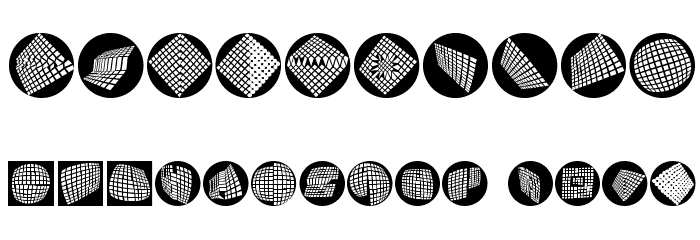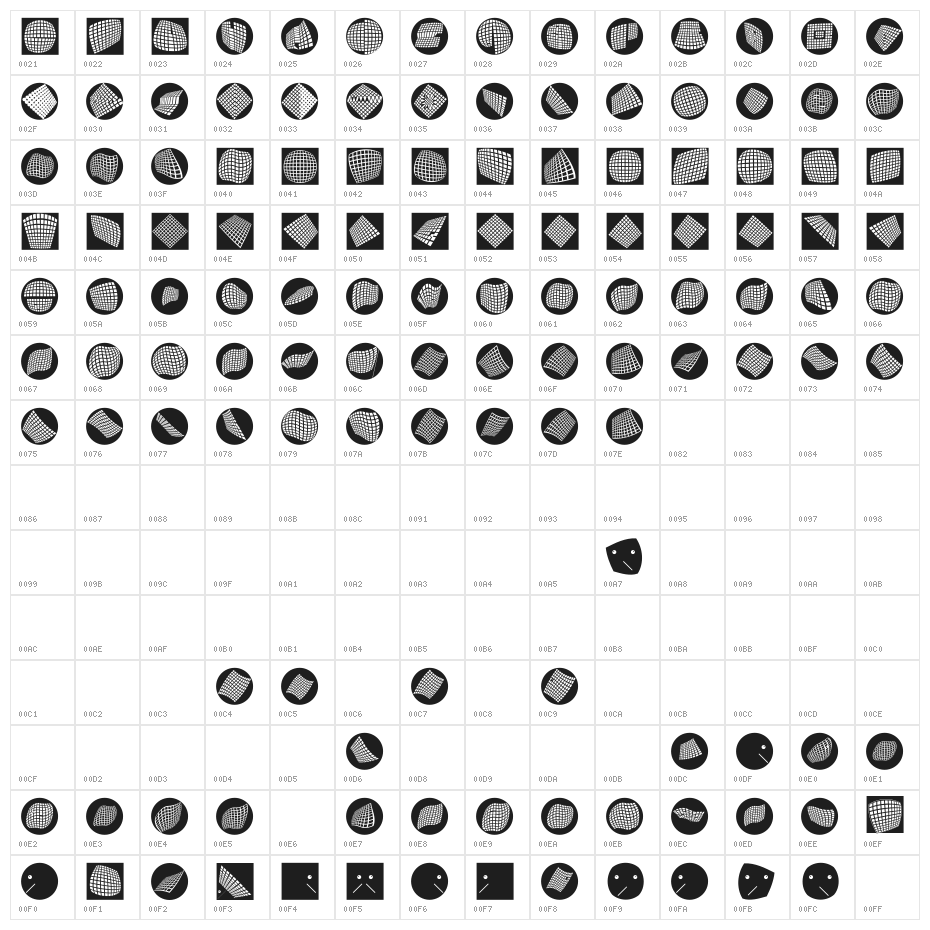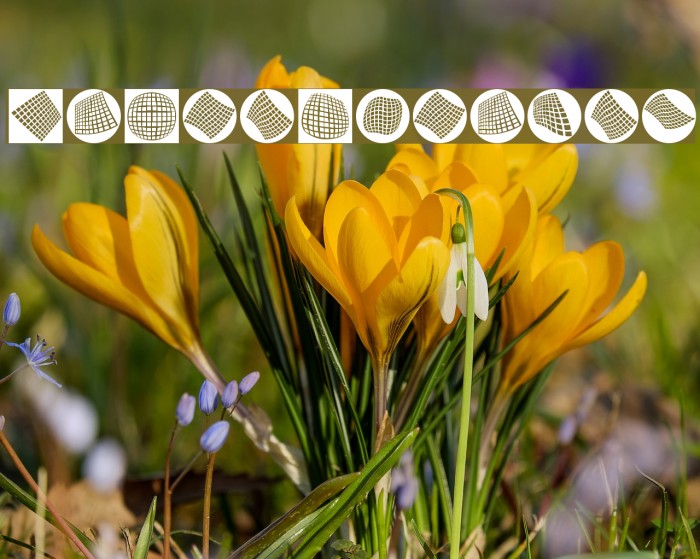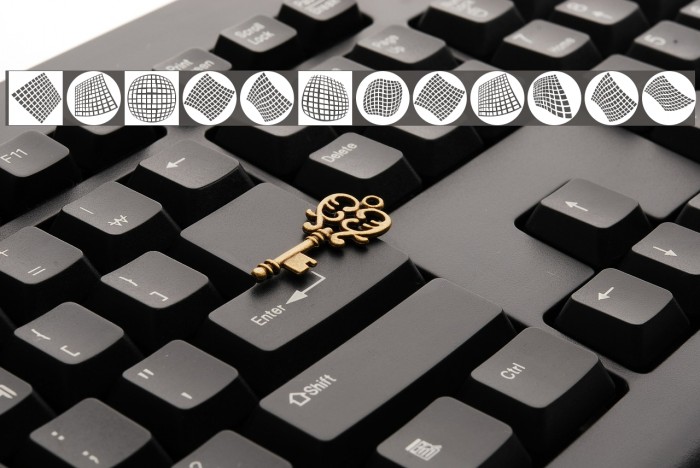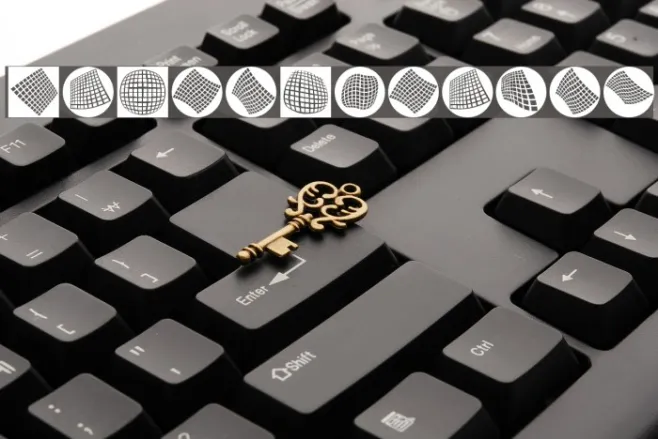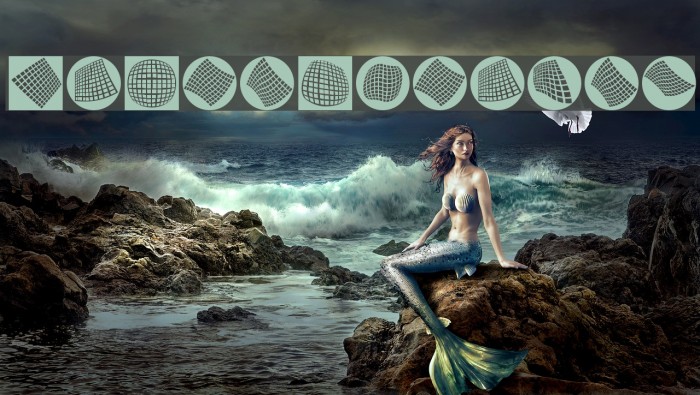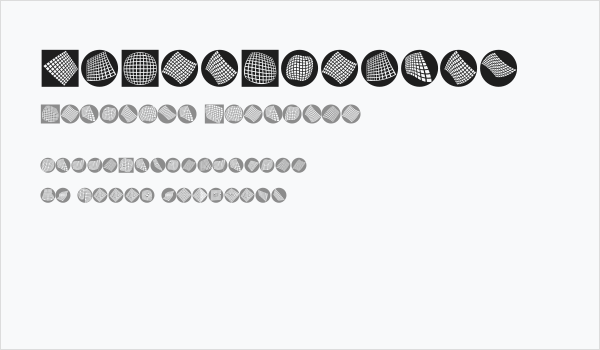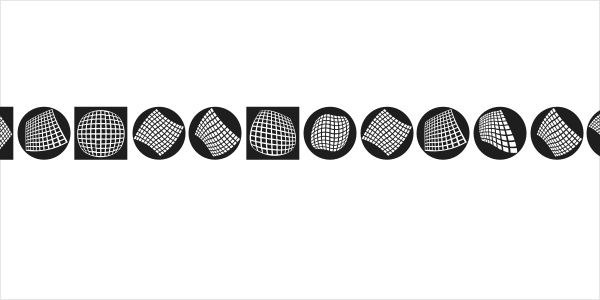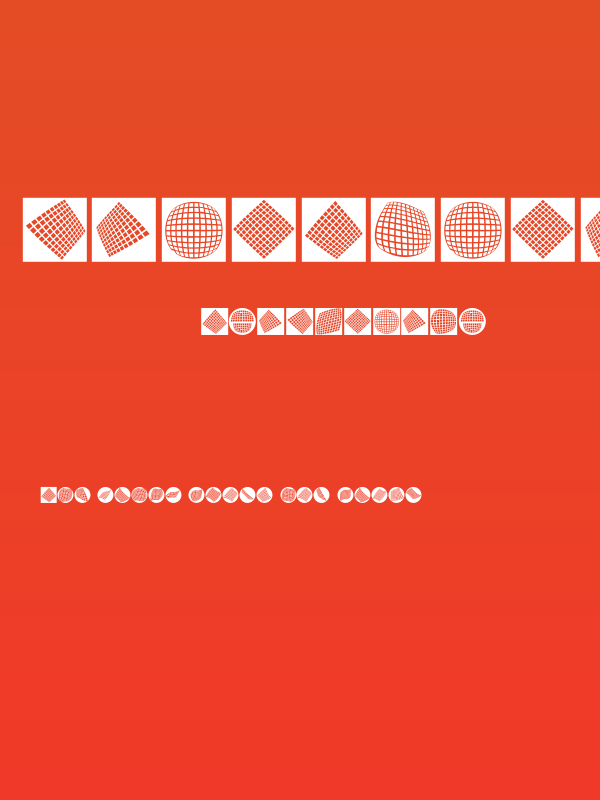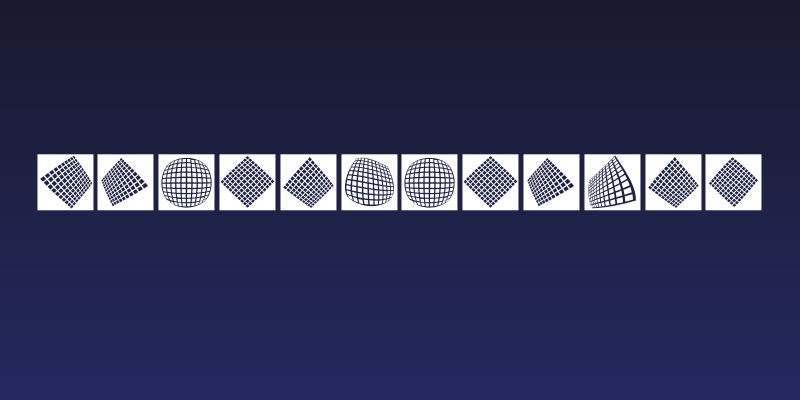
OpArtCarpets Font
A decorative display font featuring geometric, op-art inspired letterforms composed of warped grid patterns within square or circular backgrounds. Each character is highly stylized, using optical illusions and perspective effects to create a sense of depth and movement.
| Overall Style | Decorative, Modern, Op-Art |
| Proposed Projects | Posters, album covers, branding for creative industries, event graphics, editorial headlines, art installations. |